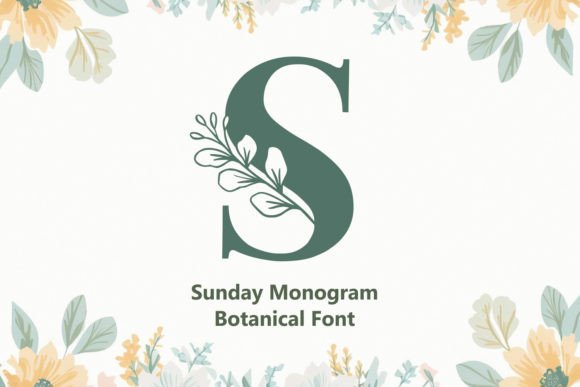
Sunday Monogram
Finding the right design elements can be challenging, but Sunday Monogram offers an exceptional collection that elevates your work instantly.
Whether you are creating POD (Print on Demand) products, wedding invitations, or social media graphics, Sunday Monogram is an ideal fit.